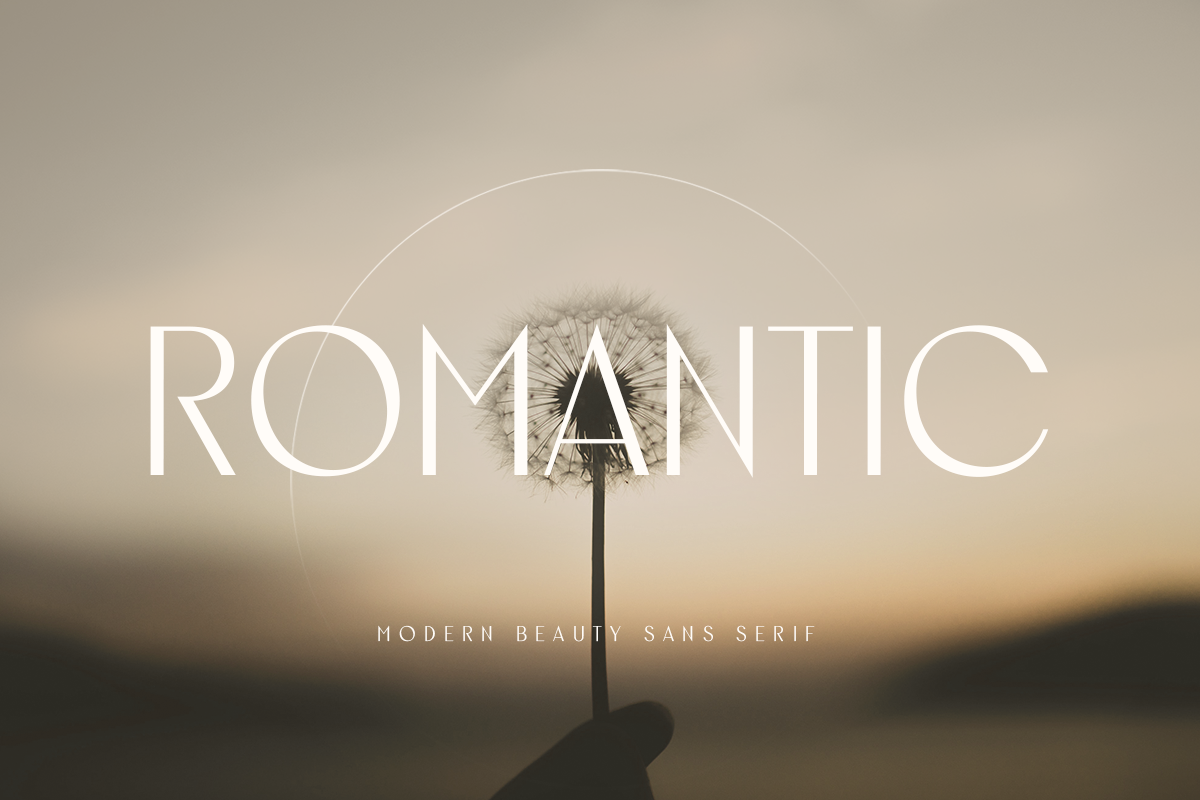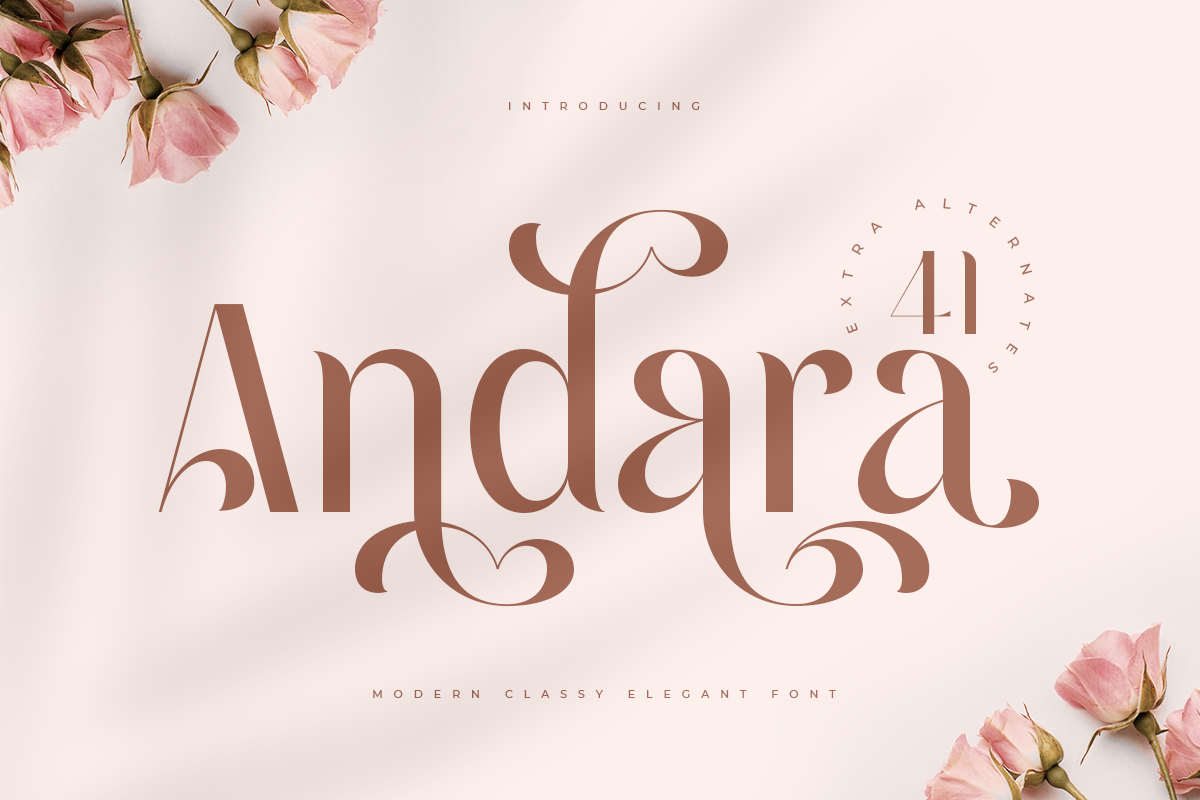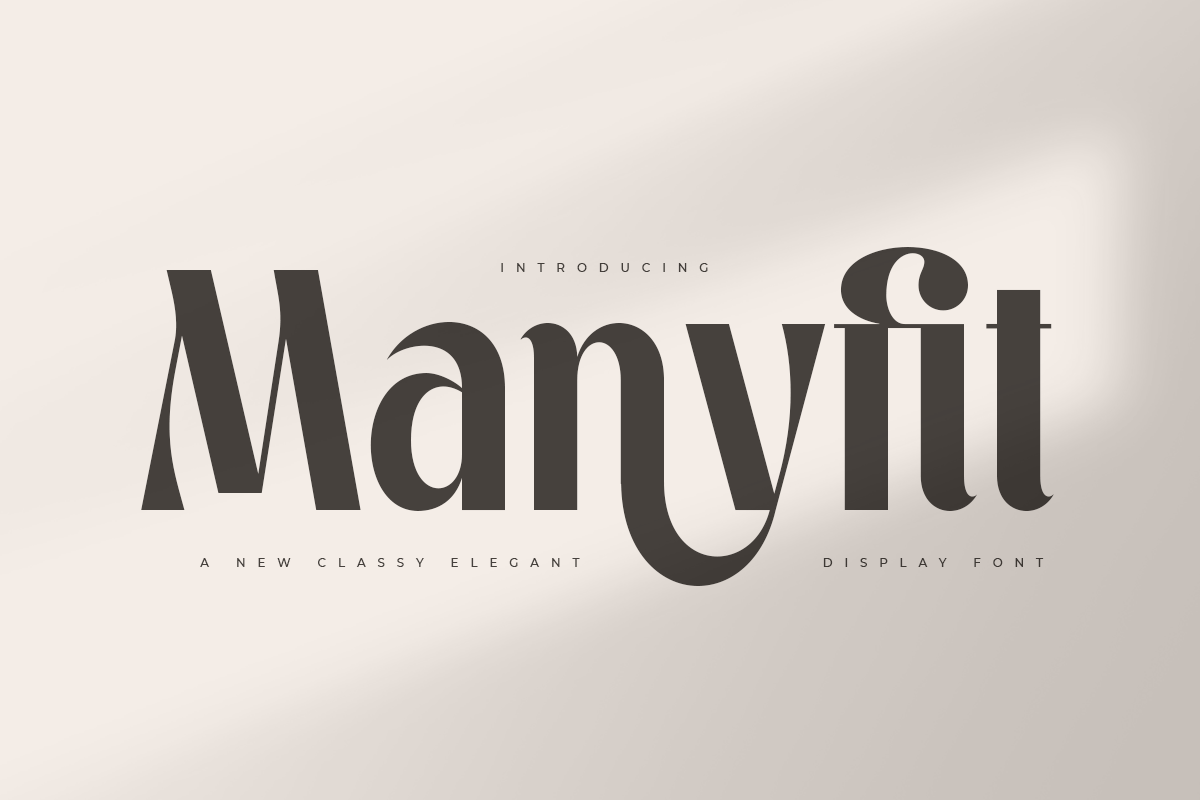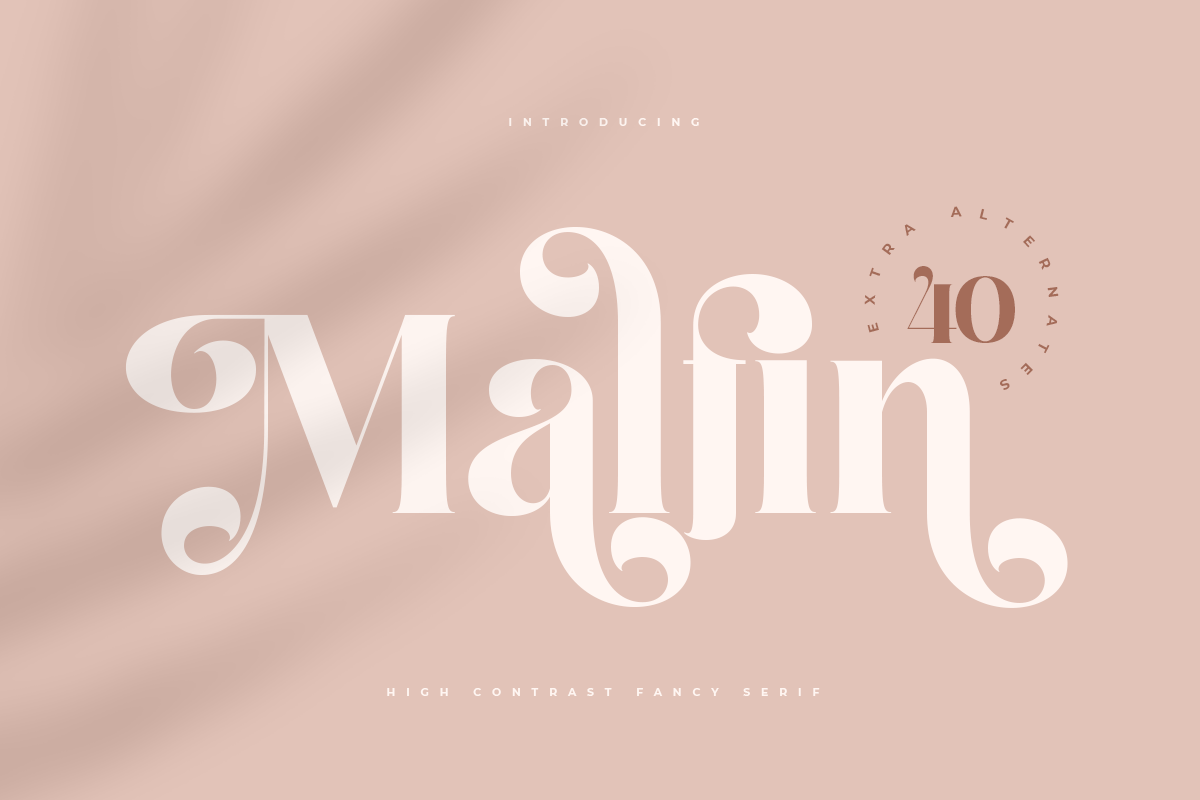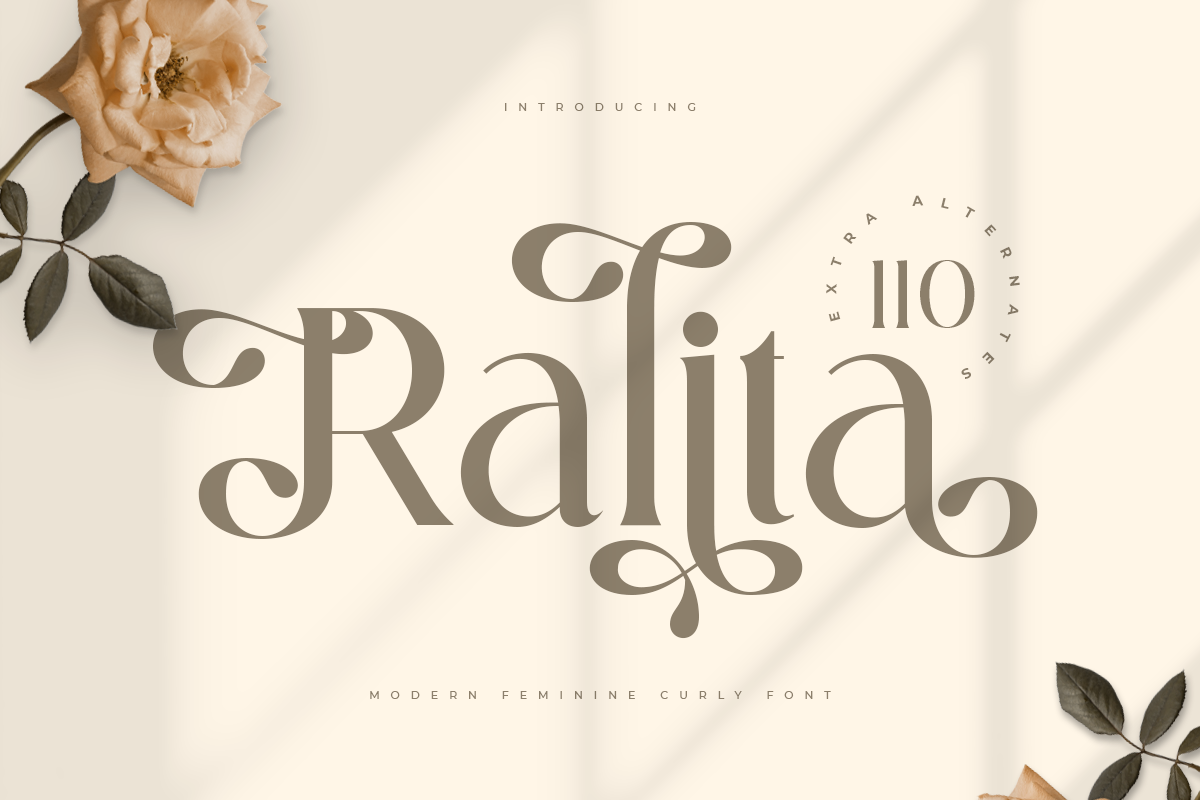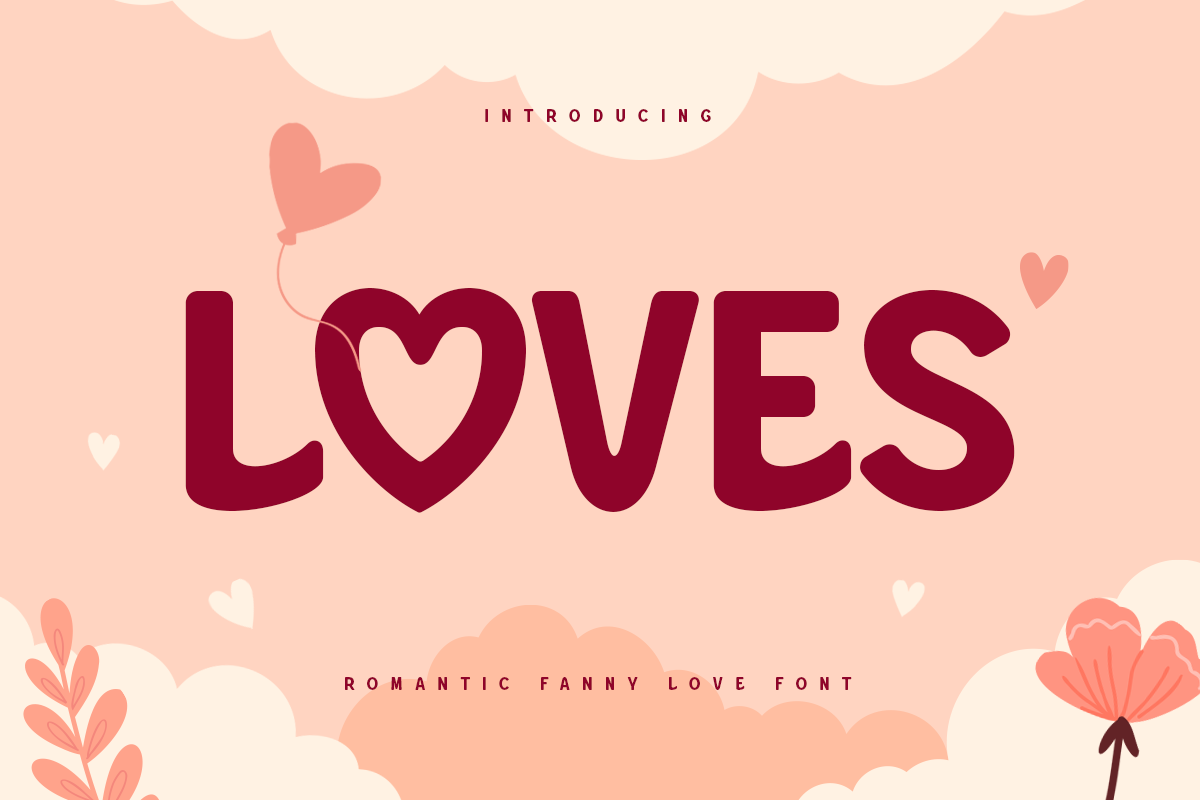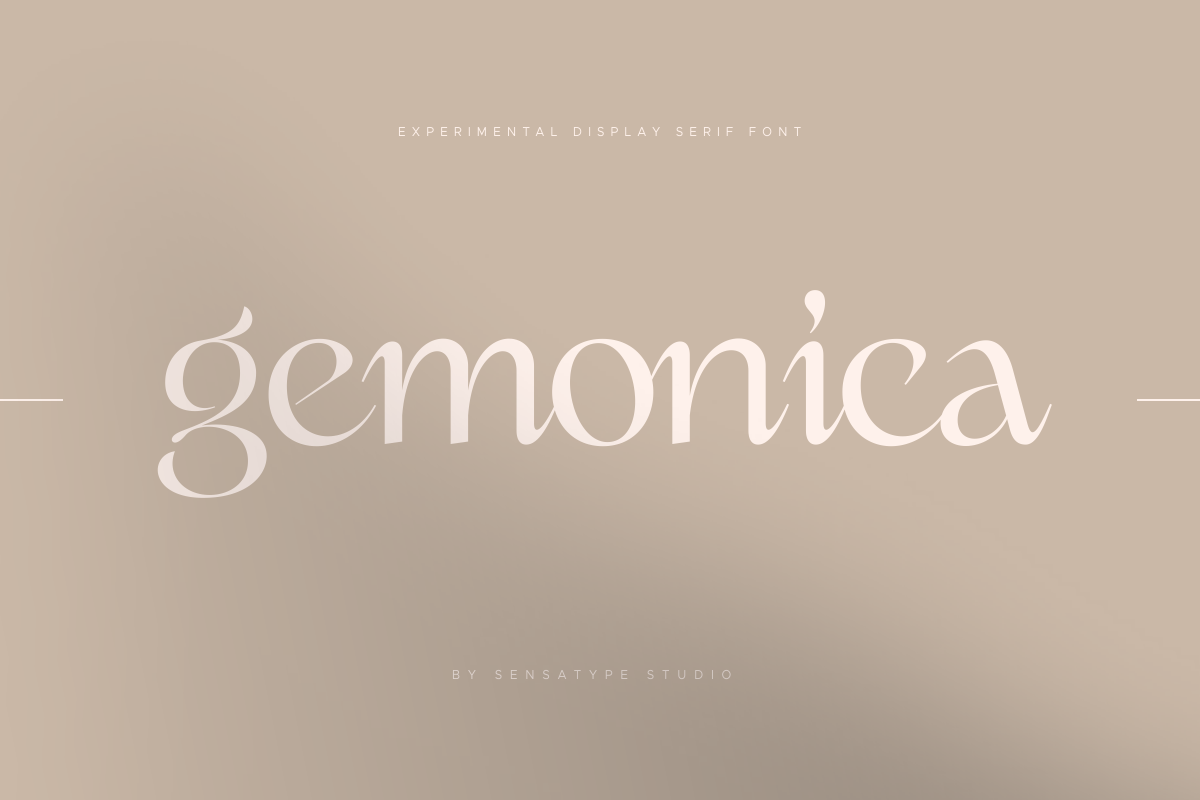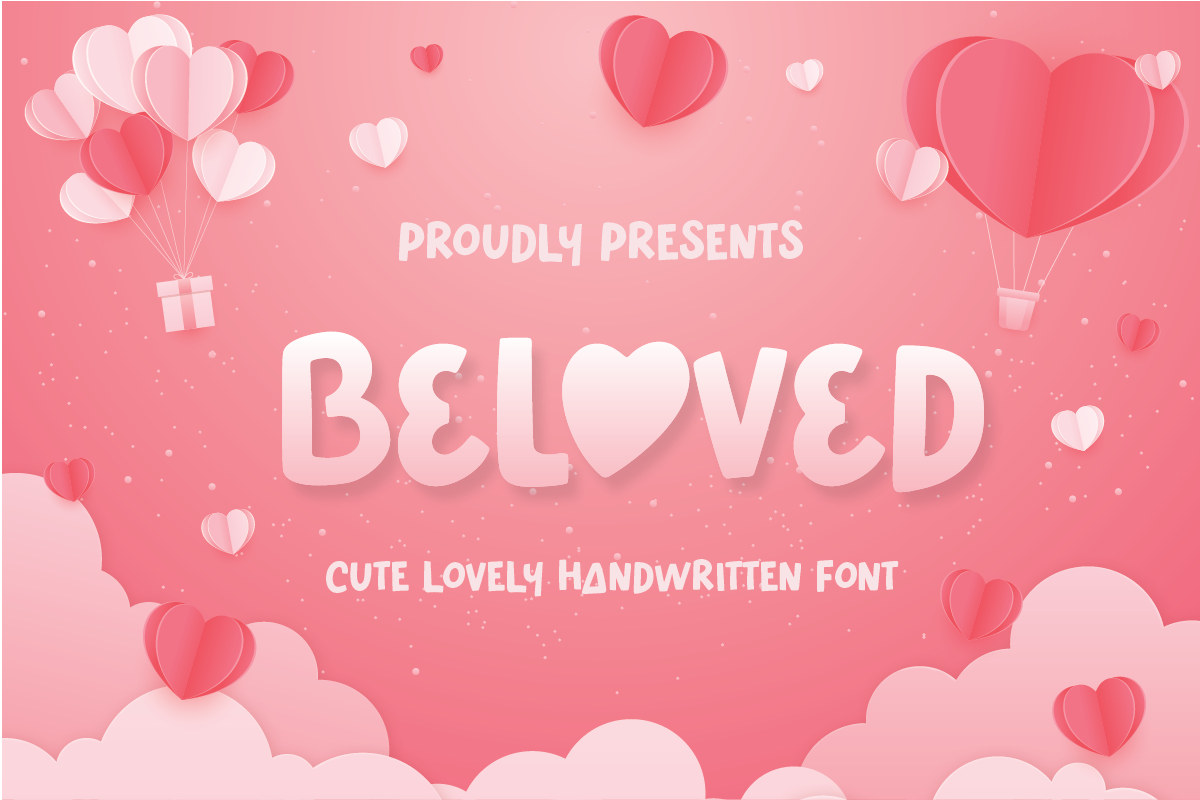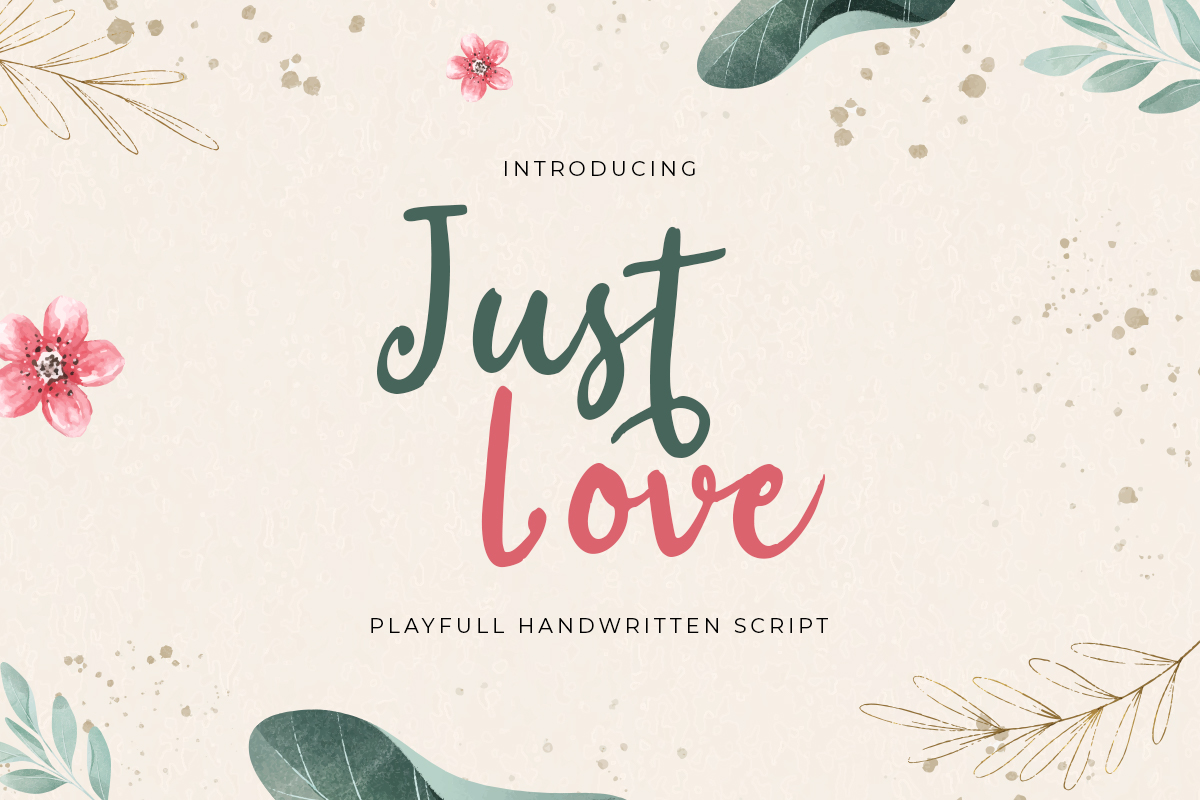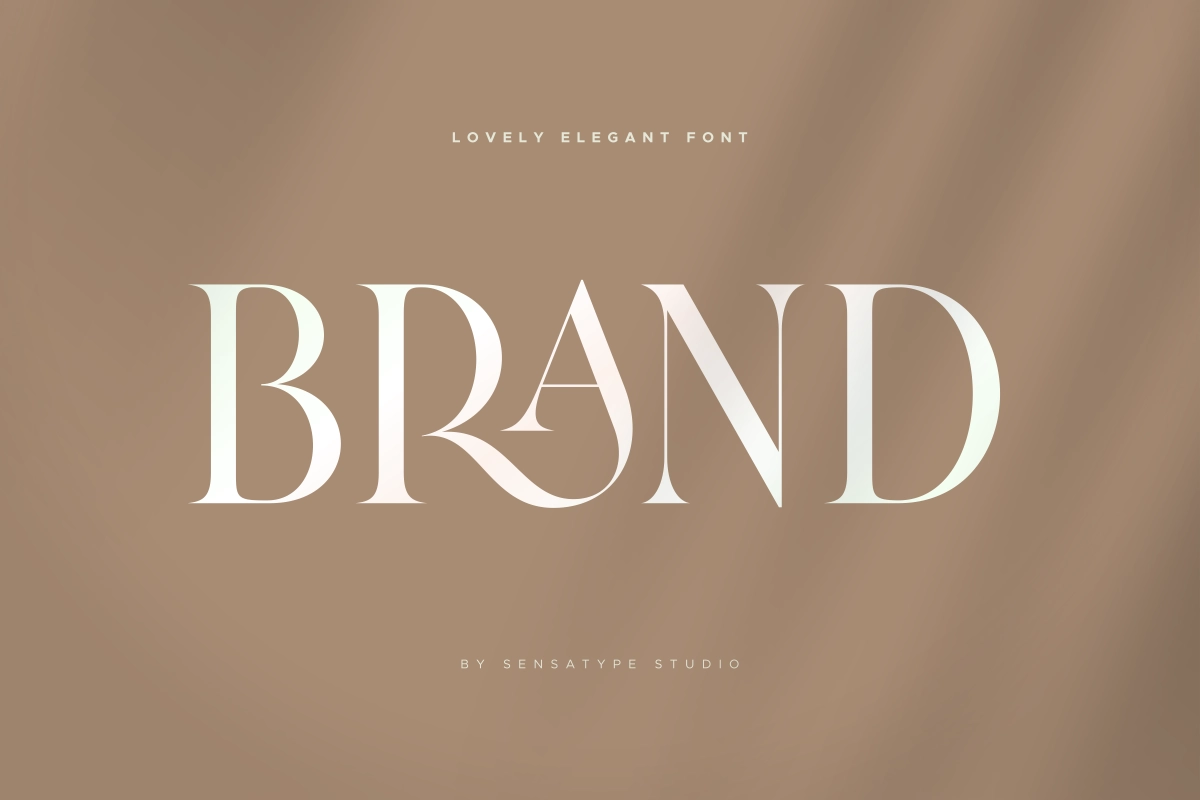
Top 10 Best Fonts for Valentine’s Day
The Most Wonderful Valentine’s Day Fonts You Should try
Aside from being a day devoted to love, Valentine’s Day is also considered a wonderful occasion for every designer and creator to show feelings through their art. For this reason, particular attention is focused on the font as one of the most important elements. No matter if you craft a loving card, create an invitation, or work on some advertising materials, with the right selection of the Valentine’s Day-related fonts, the outcome of your artwork will not only be good, but perfect. In this article, we are going to discuss the ten more fonts which are perfect for any Valentine’s Day-related project. They will surely make an imprint on your Valentine’s Day projects.
Reasons Why Font Choice on Valentine’s Day is Important
Typography isn’t just about using nice fonts, it’s about feelings and relationships. On Valentine’s Day, the right font speaks of love, ardor and moderation. It can capture the essence of your message such that it sticks better with the audience. From stylish calligraphies that imitate real love letters to modern playful typefaces that accentuate love, the choice of font you use can make or break your Valentine’s Day designs!
Top 10 Best Fonts for Valentine’s Day
Andara – Luxury Classy Love Font
Presenting the Andara Luxury Love Font which has been created bearing in mind the needs of classy branding. This font includes an entirely exclusive shape which is captivating, sophisticated and charming. This is a go to font for each and every business that need to improve their visual branding. Andara Luxury Love Font is truly going to extend the reach of your brand, whether you are in the fashion, beauty, or luxury goods industries.
This font has been made with such precision that it speaks luxury while being clear and practical for a wide array of uses. The delicate lines and curves in this font are absolutely perfect for designing logos, designing invitations and packaging, designing promotional items or even advertising so that your brand does not get lost in the marketplace.
This font is relevant for your intended audience as it conveys your brand image and quality of products to perfection.
Embrace the inherent beauty of your business with the elegant Andara Luxury Love Font. Tailored for designers, marketers, and entrepreneurs, this font is all you need to take your branding and graphics to the next level! Use the Andara Luxury Love Font ideal for sophistication and elegance and bring out the best of your brand!
Loves – Romantic Funny Love Font
A Love Valentine Romantic font that we created special for lovely moment needs, like valentine and kids branding with extra unique characters will be ready to add value of your brand. It so nice to leverage designer or product owner that need solutions to make their design look more lovely and funny. And specially for Loves font, We prepared any unique characters to help you create unlimited variations for your creative needs.
Designed with warmth and playfulness that offers a touch to your design and products, Loves Font is perfect for greeting cards, party invitations, or kids products branding. Eyeing for these products without this font would still be extraordinary, however, these products would be even more awesome with this font! The captivating appeal of this font is certain to engage your audience and create an unforgettable experience like none other.
Additionally, our Loves Font is distinguished from the rest in that it comes with an extremely unique characters that you can choose from, giving you the chance to mix and match in any way you want. Because of this feature, it is one of the best platforms for designers to work on new projects and connect with their clients.
Inspire love in your projects with Loves Font and make them look lovesome with care and creativity.
A Luxury Modern Feminine Curly Font that we created special for elegant branding needs, with a unique shape will be ready to add value of your brand. It so nice to leverage designer or product owner that need solutions to make their design look more stylish and modern. And specially for Ralita font, We prepared any characters to help you create unlimited variations for your creative needs.
Ralita – Modern Feminine CulyFot
Enhance your projects today with Brand – the Lovely Elegant Font which combines beautiful classic styles with contemporary design. Ideal for personal and commercial usage, this font comes in handy to make your projects appealing. Embrace Boundless, Brand's characteristic beauty, and your imagination flows out!